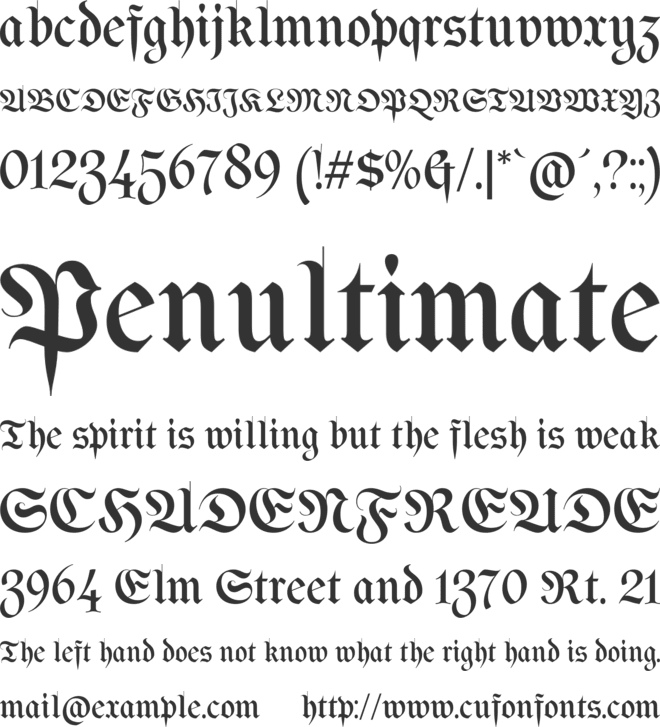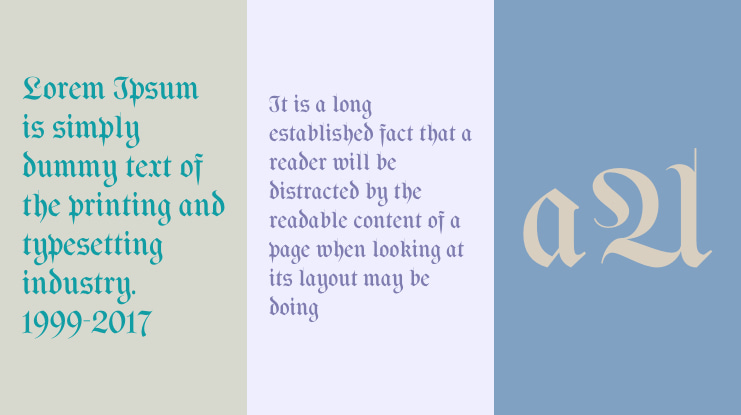
Jolicia Type Foundry
Bulldach Lettra is a bold blackletter typeface inspired by classic
gothic typography, featuring sharp letterforms, strong contrast,
and intricate details. Available in clean and distressed styles, it
offers versatility for both polished and vintage aesthetics. Perfect
for logos, branding, music posters, and streetwear, this font
delivers a dark, expressive, and timeless visual identity with a
powerful historical feel.